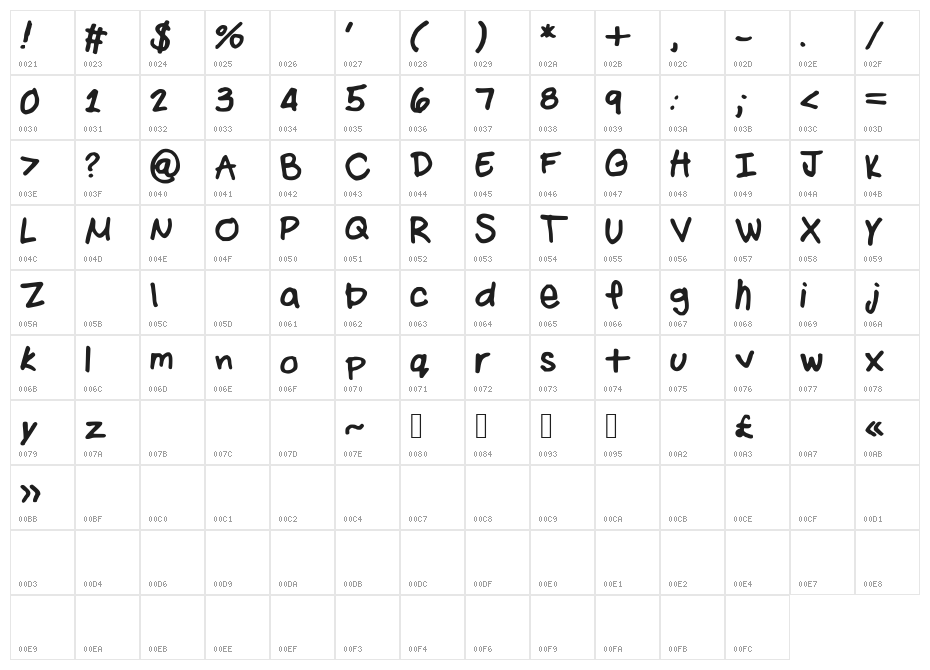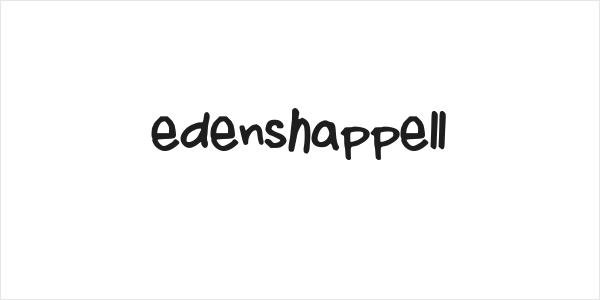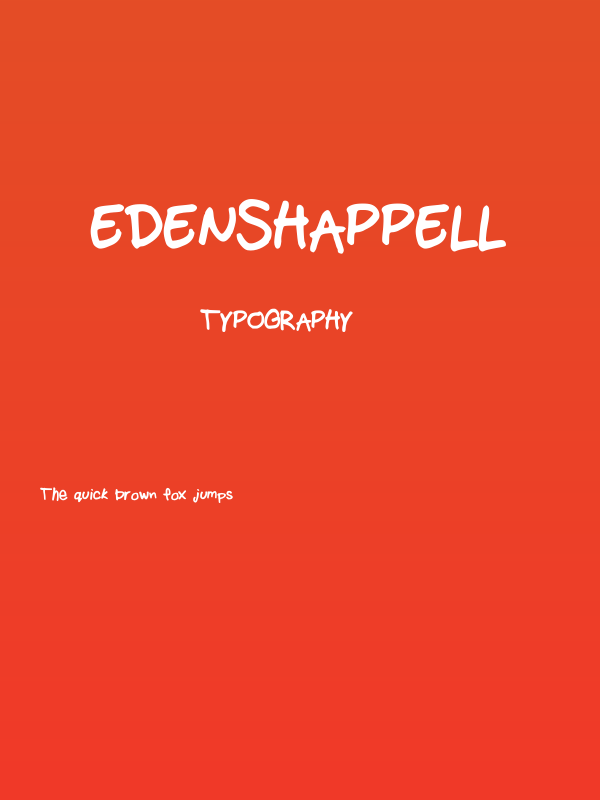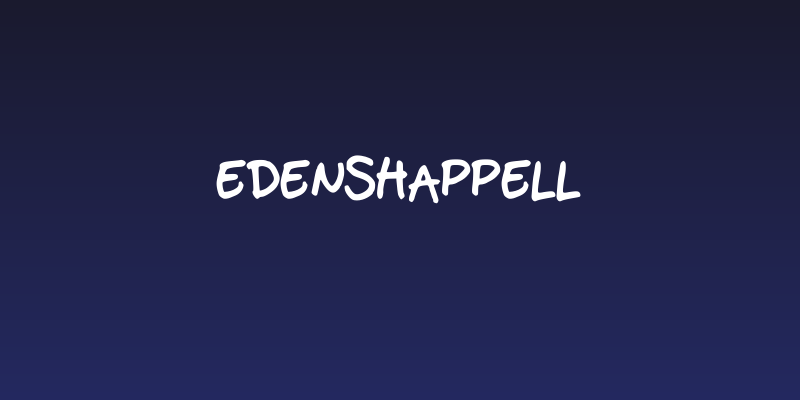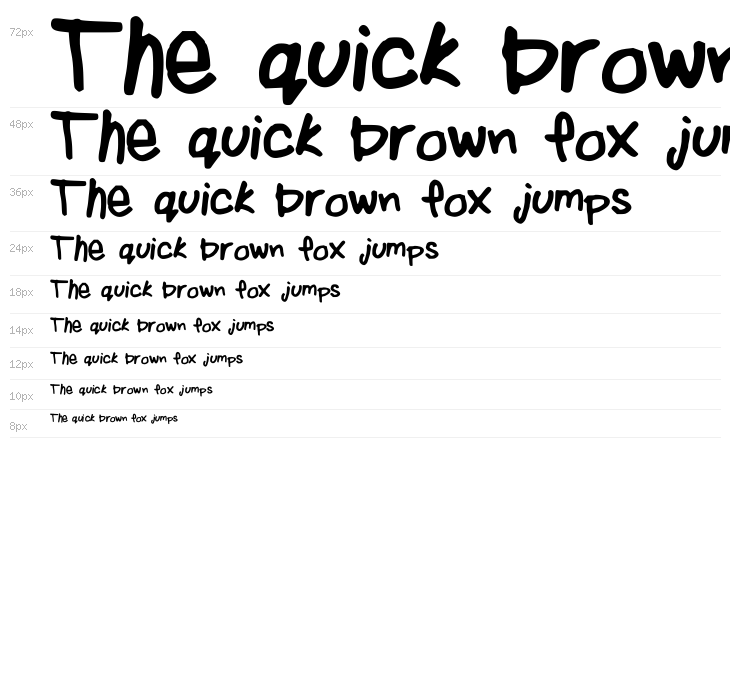
edenshappell Font
edenshappell Description
This playful and energetic font features a handwritten style with bold, rounded strokes that give it a friendly and approachable appearance. The characters are slightly irregular, adding a touch of whimsy and personality. The uppercase and lowercase letters maintain a consistent style, with a casual flow that mimics natural handwriting. Numbers and special characters are equally bold and expressive, making them stand out. This font is perfect for projects that require a fun and informal touch, such as children's books, greeting cards, or playful branding.
| Proposed Projects | Ideal for children's books, greeting cards, playful branding, and informal invitations. |